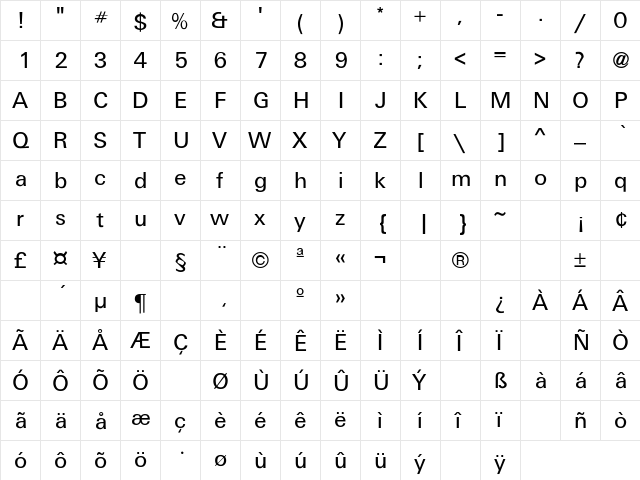
Galaxy Regular Font Preview
Galaxy Regular
Galaxy Regular Font Details
Design Context for Galaxy Typeface
Galaxy takes a measured approach to typography — its balanced proportions and neutral character make it a reliable workhorse for both digital and print work.